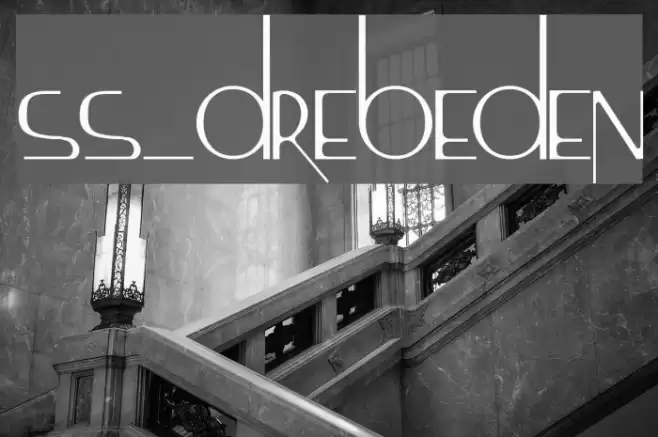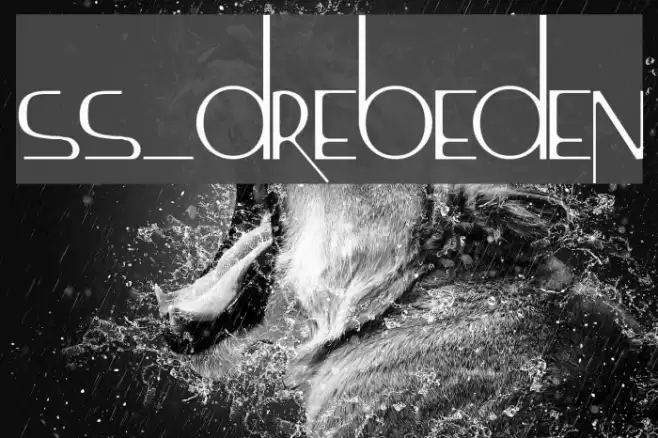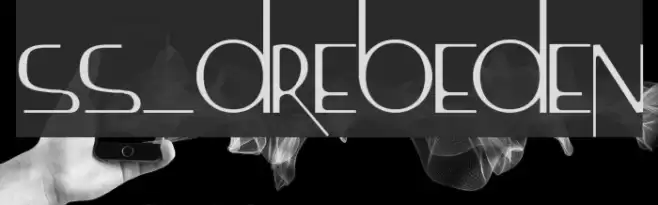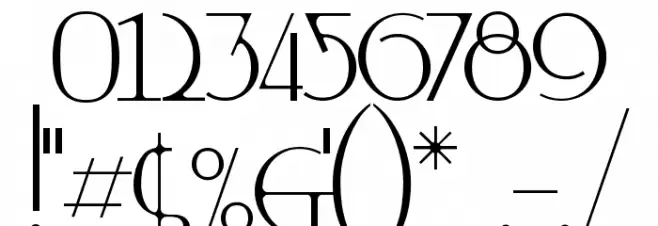
ss_drebeden Font
ss_drebeden Description
This font exhibits a unique and modern style characterized by its geometric and artistic letterforms. The uppercase letters are tall and slender, with some characters featuring distinctive curves and angles that add a touch of elegance. The lowercase letters maintain a consistent style, with smooth curves and a clean appearance. The numbers are designed with a similar aesthetic, ensuring uniformity across the font. Special characters are creatively crafted, adding to the font's overall artistic appeal. This font is ideal for projects that require a contemporary and stylish look.
A modern, geometric font with artistic letterforms and elegant curves from Uncategorized fonts.
- Proposed Projects: Ideal for branding, logos, posters, and modern web design projects.
- Overall Style: Modern, Artistic